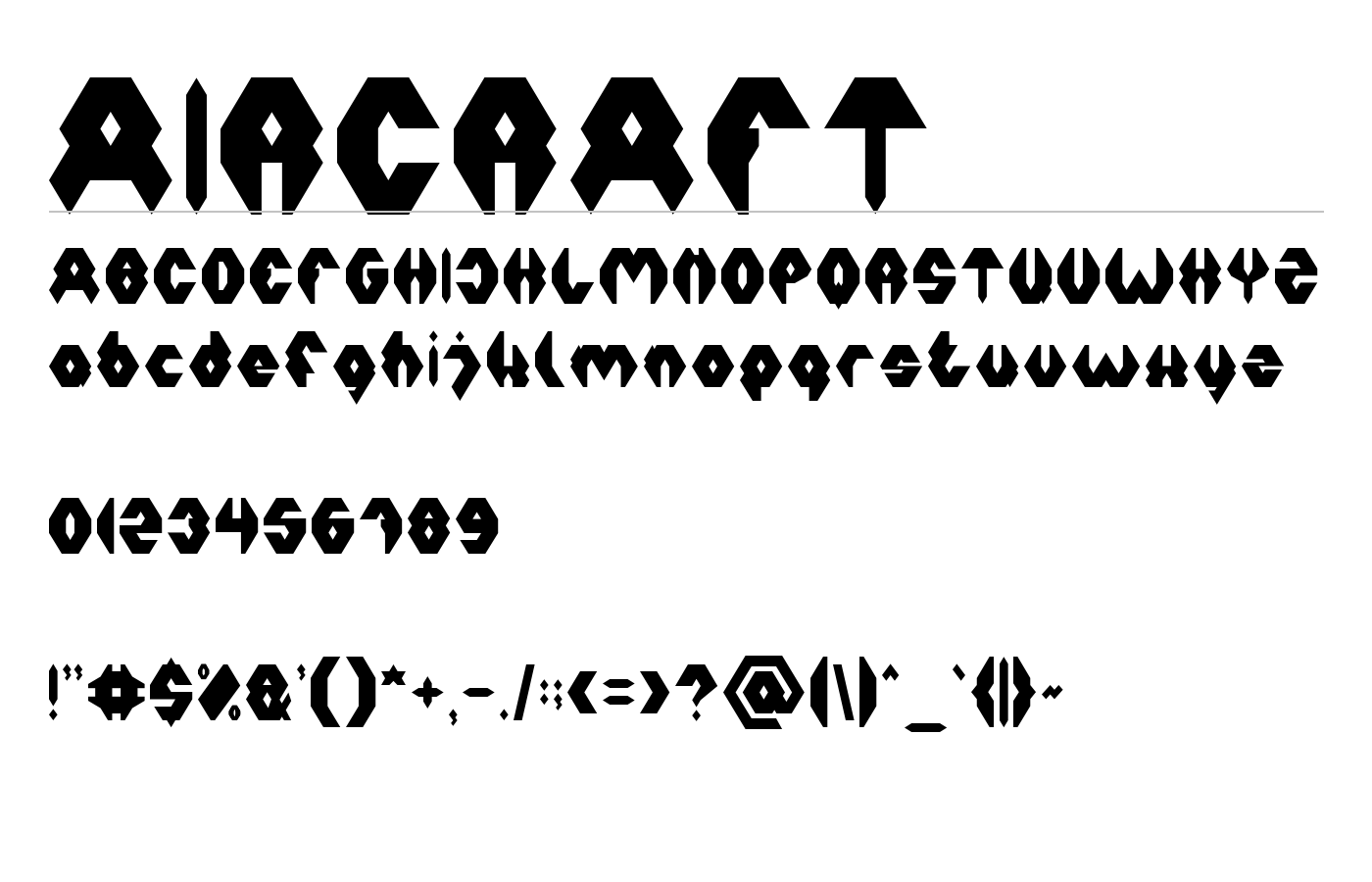
AIRCRAFT is a bold, geometric sans serif font with a strong, futuristic vibe thanks to its angular, sharp edges and condensed letterforms. Its unique, almost stencil-like shapes give it a mechanical and modern personality, making it ideal for impactful headlines, logos, or designs that want to evoke technology and innovation. This font works best in large sizes where its distinctive style can stand out and make a lasting impression.
AIRCRAFT Font
About AIRCRAFT Font